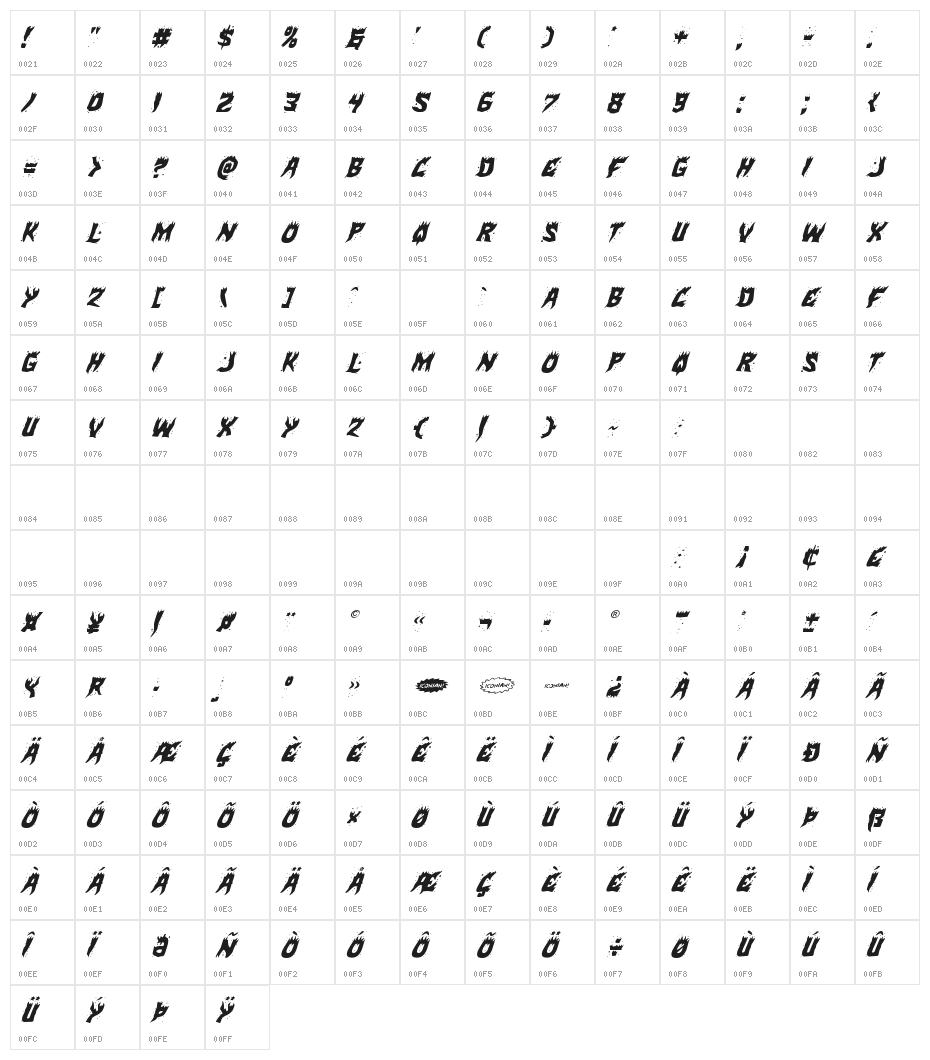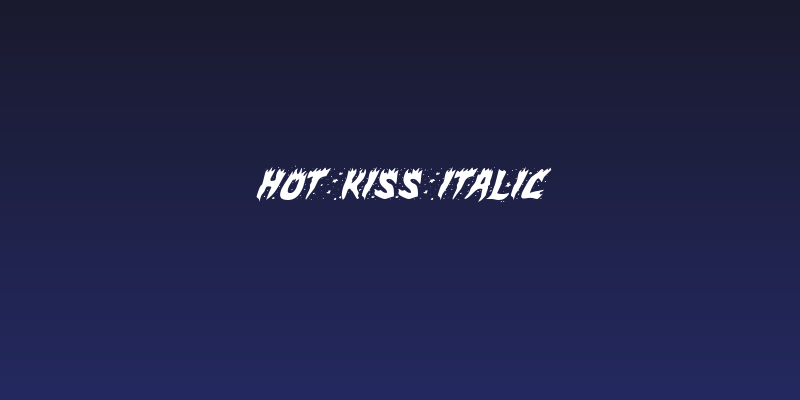
Hot Kiss Italic Font
Hot Kiss Italic Description
This font features a bold and dynamic design with an italic slant, giving it a sense of movement and energy. The characters are sharply defined with jagged edges, resembling flames or splashes, which adds a dramatic and edgy feel. The uppercase and lowercase letters maintain a consistent style, with the uppercase being more pronounced. Numbers and special characters follow the same aesthetic, ensuring uniformity across all elements. The font's unique style makes it ideal for attention-grabbing designs.
Overall StyleModern, Edgy
Proposed ProjectsIdeal for music album covers, event posters, video game titles, and any project requiring a bold, eye-catching typeface.